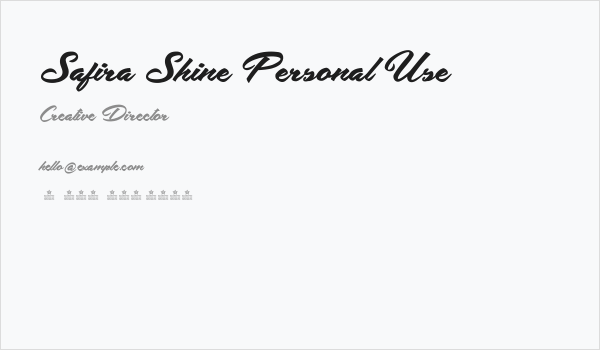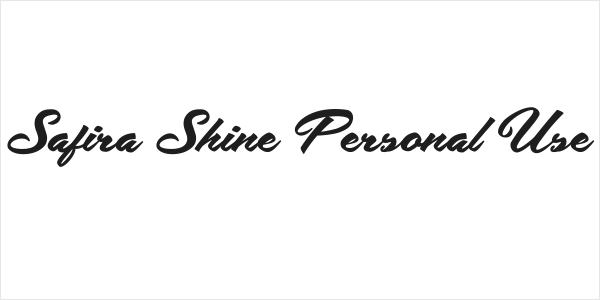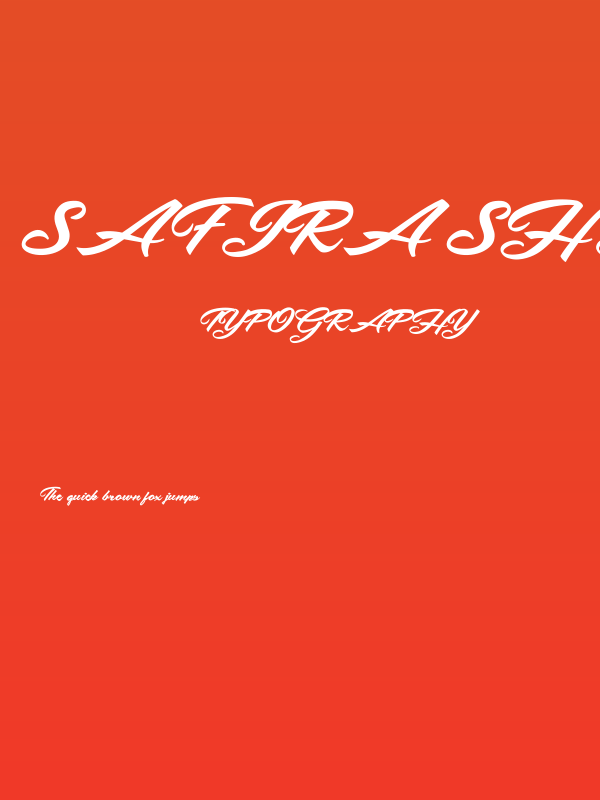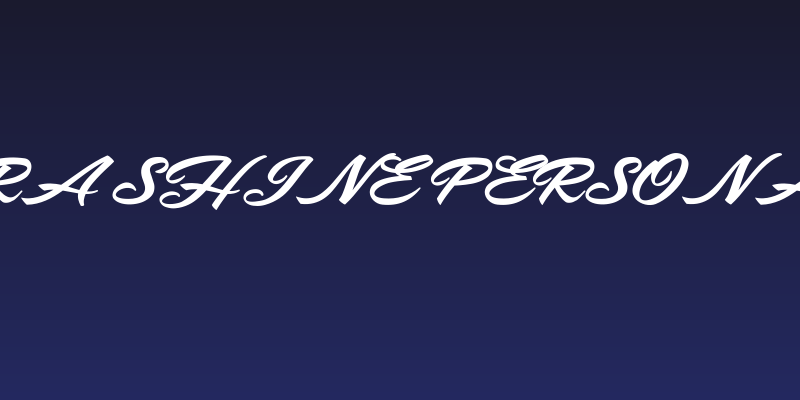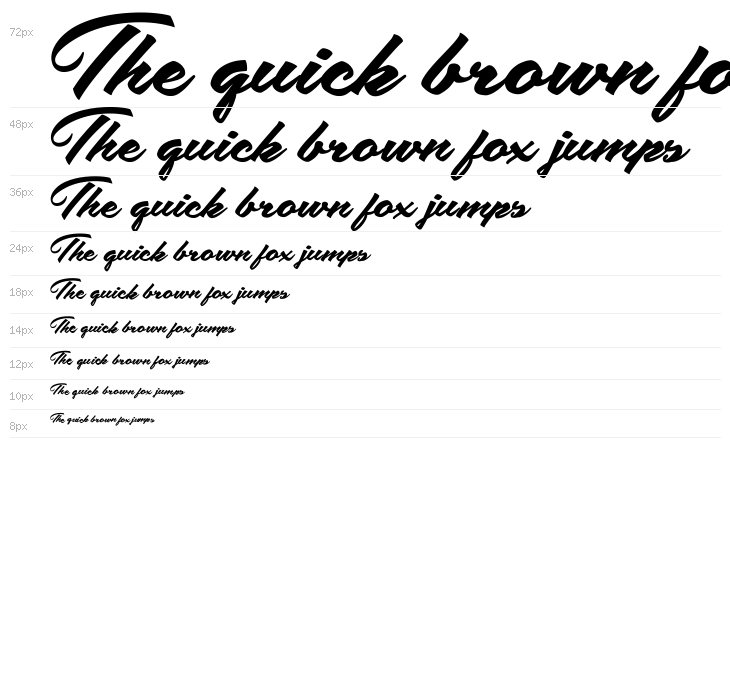
Safira Shine Personal Use Font
Safira Shine Personal Use Description
This font features an elegant script style with a flowing, cursive design. The uppercase letters are characterized by their sweeping curves and graceful loops, giving a sense of sophistication and fluidity. The lowercase letters maintain a consistent style, with smooth connections between characters, enhancing readability while preserving the decorative flair. The font's bold weight adds a sense of presence and impact, making it suitable for attention-grabbing headlines or titles. The overall style is modern yet timeless, with a touch of classic calligraphy. The character spacing is relatively tight, which contributes to its cohesive appearance. The contrast in stroke thickness is medium, providing a balanced look that is neither too stark nor too subtle.
| Proposed Projects | Ideal for wedding invitations, branding, elegant logos, and high-end product packaging. |